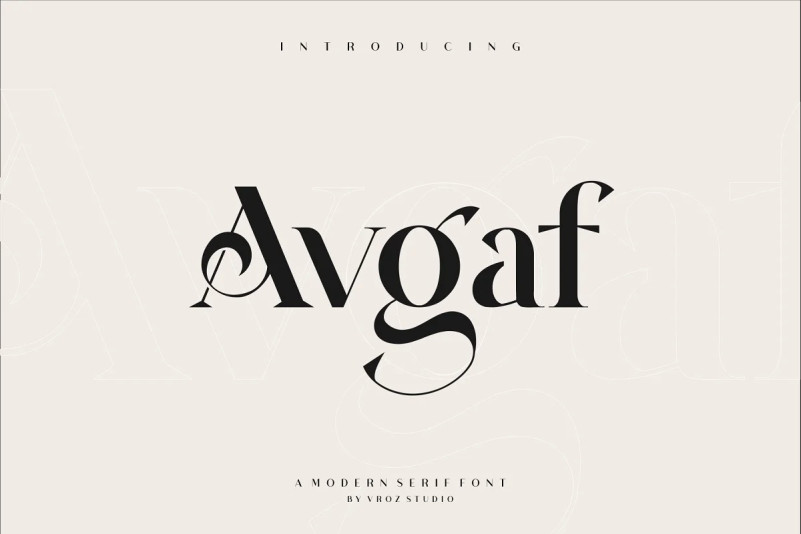
Avgaf Font
AVGAF – A Modern Serif Font will perfect for many project: fashion, magazines, logo, branding, photography, invitations, wedding invitation, quotes, blog header, poster, advertisements, postcard, book, websites, etc.